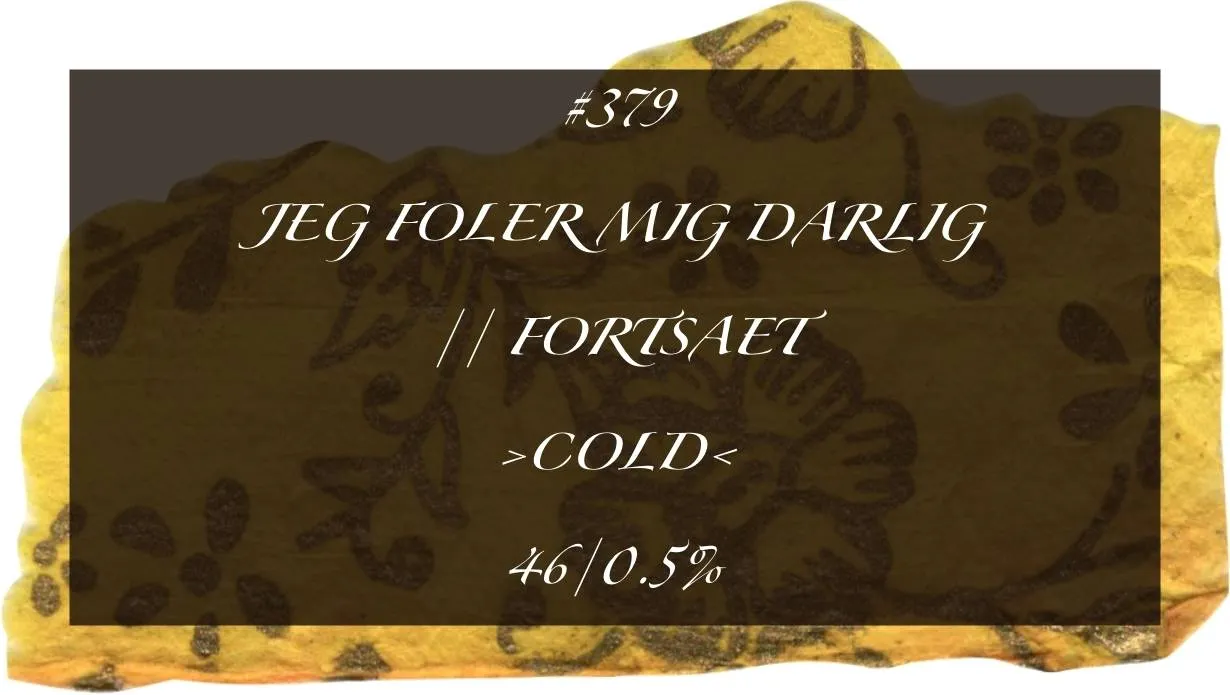
Zapfino Font is a decorative typeface named after Hermann Zapf, designed in 1998 by Akira Kobayashi. It is the culmination of almost 50 years of work on perfecting an easily written calligraphic script type.